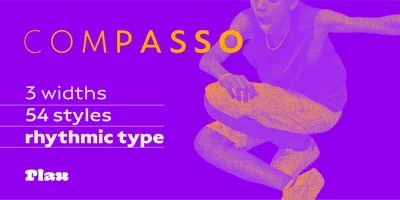
Compasso Font
Compasso Font is perfect for navigation app interfaces, travel agency branding, adventure tour company logos, maritime navigation systems, outdoor exploration gear packaging, hiking trail signage, GPS device displays, cartography projects, expedition planning materials, and wayfinding design systems that require precise directional clarity and adventurous spirit.
This font is exciting because it captures the essential precision and reliable guidance of navigational instruments with clean, directional letterforms that embody the accuracy and dependability required for successful exploration and wayfinding. Compasso Font features geometric construction and balanced proportions that reflect the mathematical precision of compass navigation while maintaining excellent readability across both digital interfaces and physical signage applications.
Compasso Font family includes Regular, Bold, Light, Medium, Condensed, Extended, Digital, and Navigator versions, plus directional arrows, compass symbols, navigation icons, and wayfinding elements that enhance the authentic navigation aesthetic and provide comprehensive design solutions for travel and exploration applications.
For navigation and adventure design projects, Compasso Font delivers exceptional clarity and directional authority. The font's precise letterforms and navigational character make it perfect for travel companies, outdoor brands, and navigation technology seeking to communicate reliability, accuracy, and adventure readiness. Its clean, functional design appeals to explorers and travelers who depend on clear, trustworthy information. The character set includes specialized navigation symbols and directional indicators that meet industry mapping standards. Professional designers appreciate its exceptional legibility across digital displays and outdoor signage while maintaining distinctive personality that sets navigation brands apart, making it essential for companies that want to project precision, reliability, and the adventurous spirit of exploration in both digital navigation systems and physical wayfinding applications.